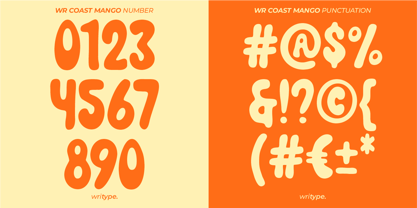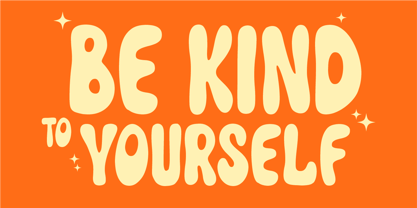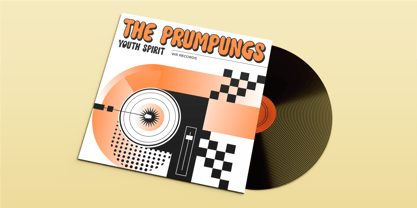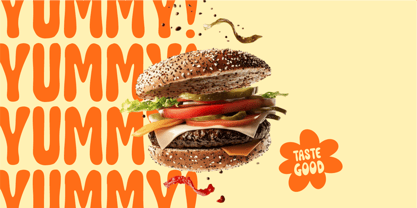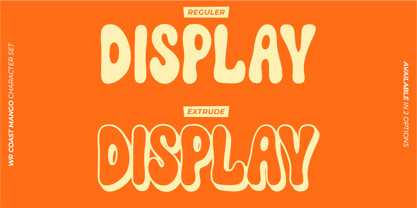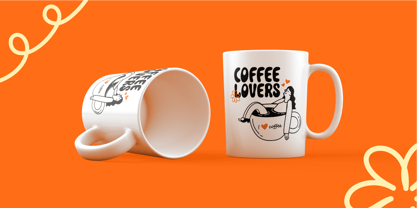
WR Coast Mango
von WriType
Die Schriftfamilie WR Coast Mango wurde von Wira Pras entworfen und von WriType veröffentlicht. WR Coast Mango enthält 2 Stile und Familienpaketoptionen.
WR Coast Mango is a slightly bold yet slim hand-drawn font with a natural and stylish feel. Perfect for posters, branding, packaging, and more, it adds a unique handcrafted touch to any design.
Available in two styles: Regular & Extrude, allowing you to create layered typography with depth and character.
Designer: Wira Pras
Herausgeber: WriType
Foundry: WriType
Eigentümer des Designs: WriType